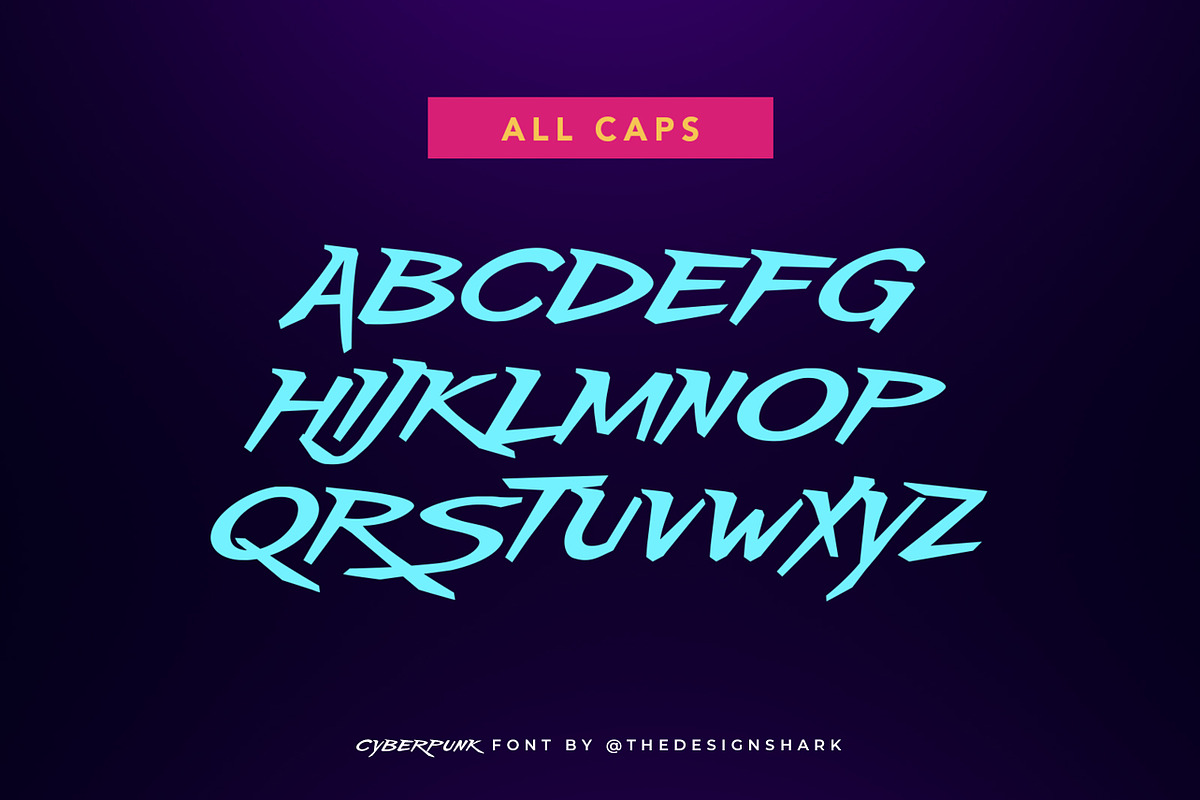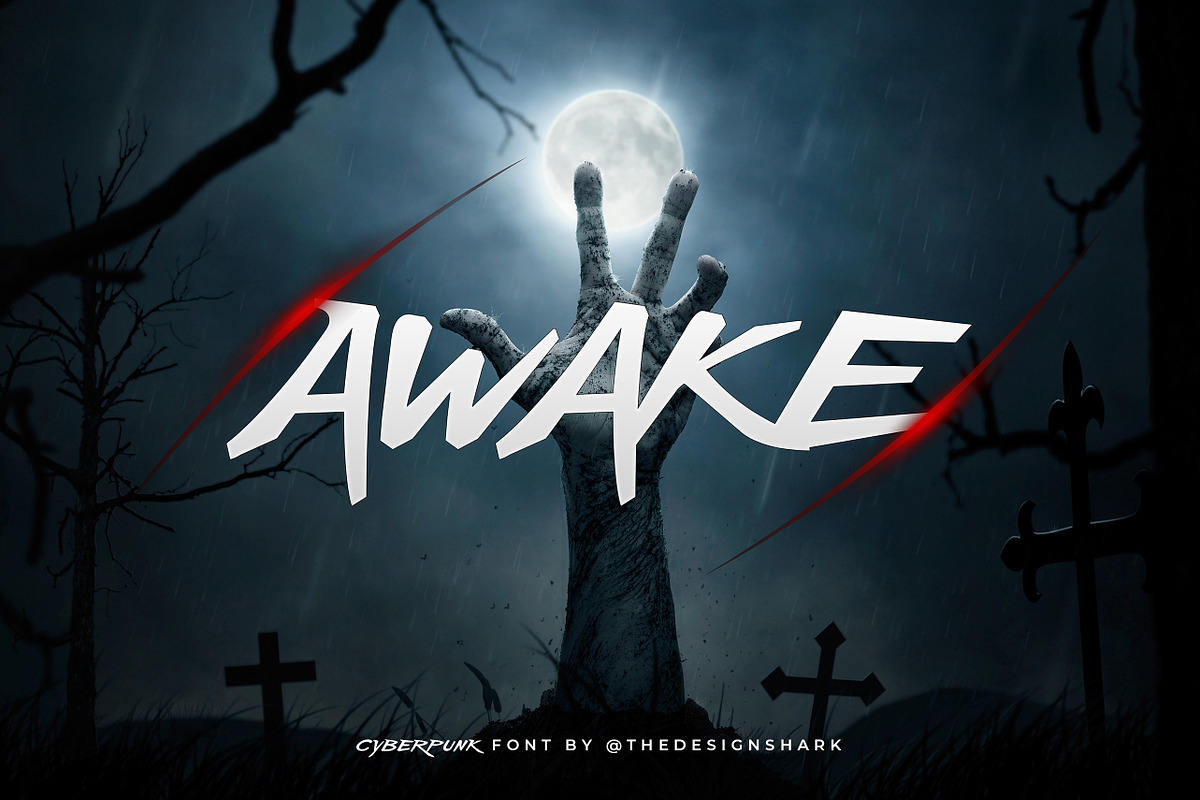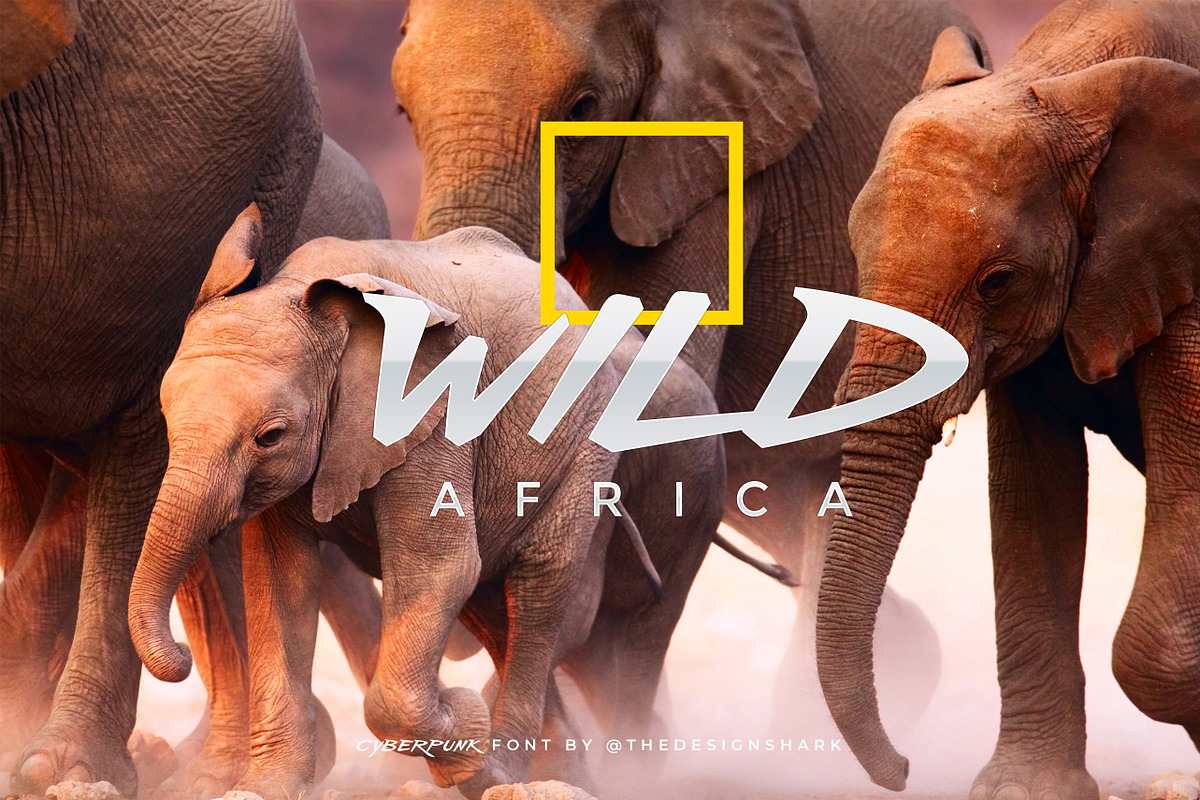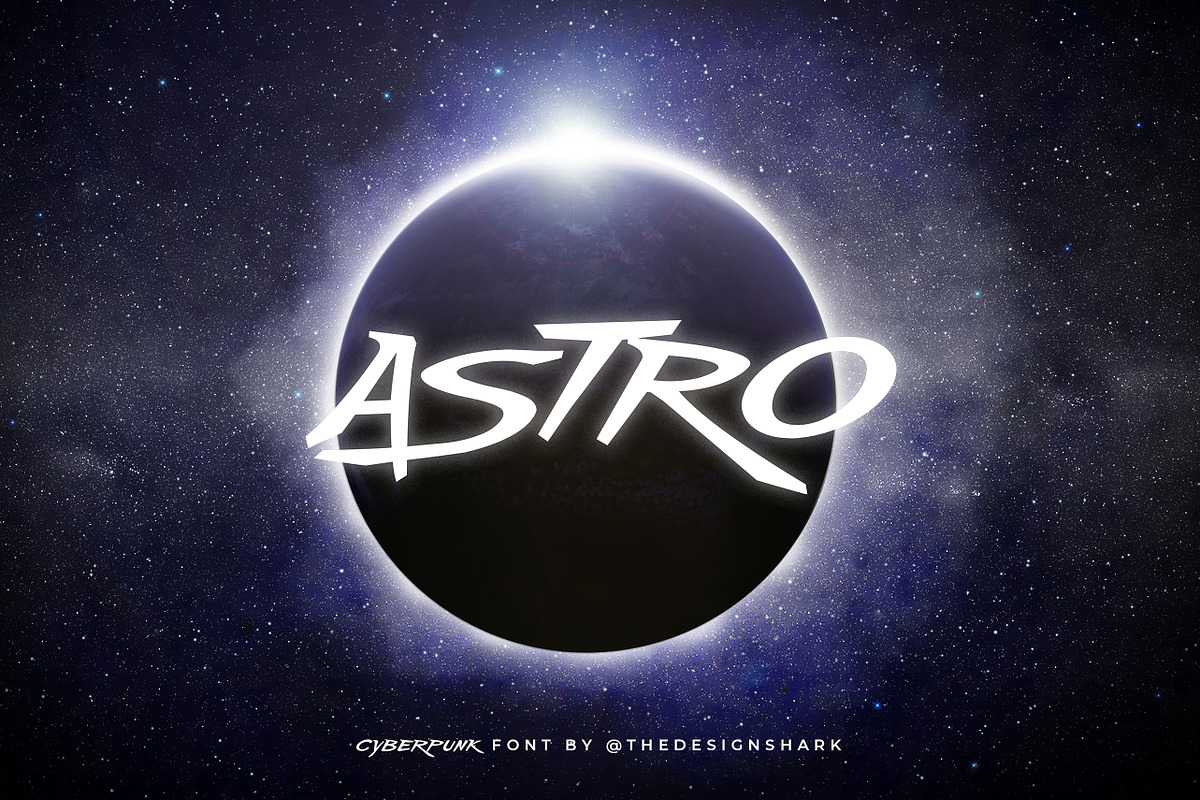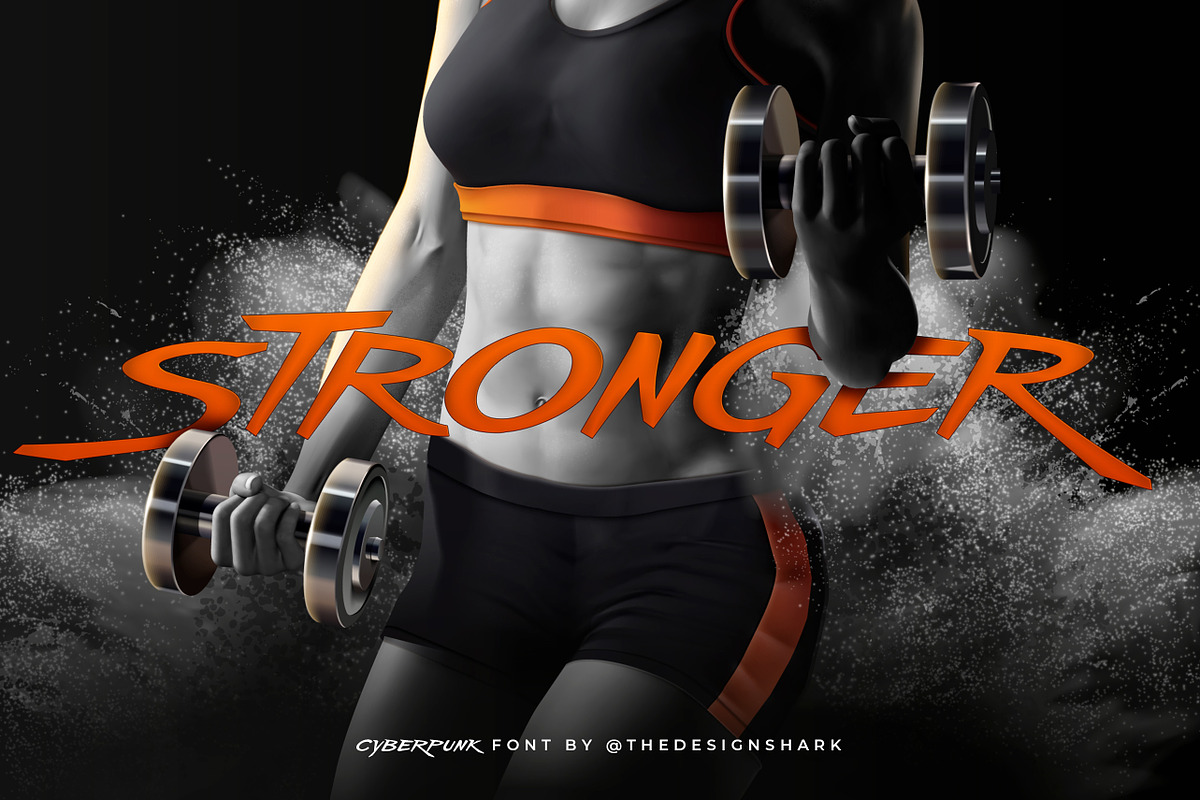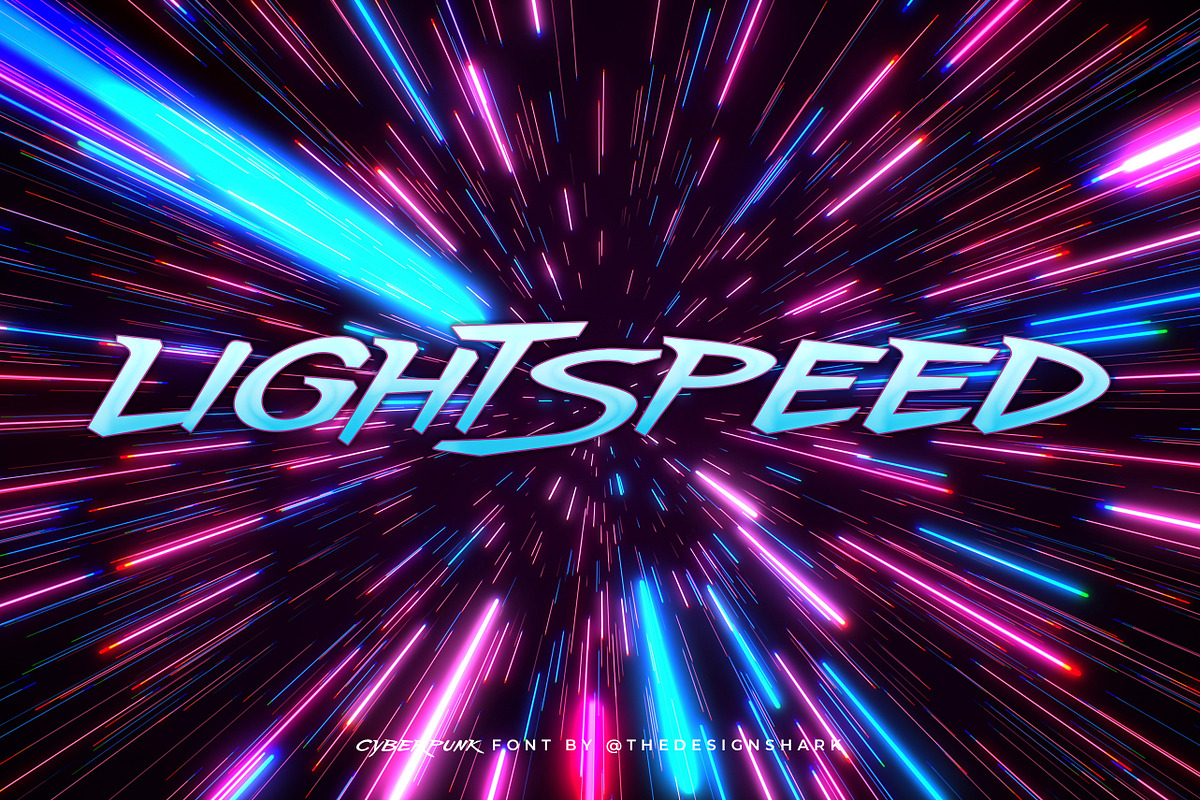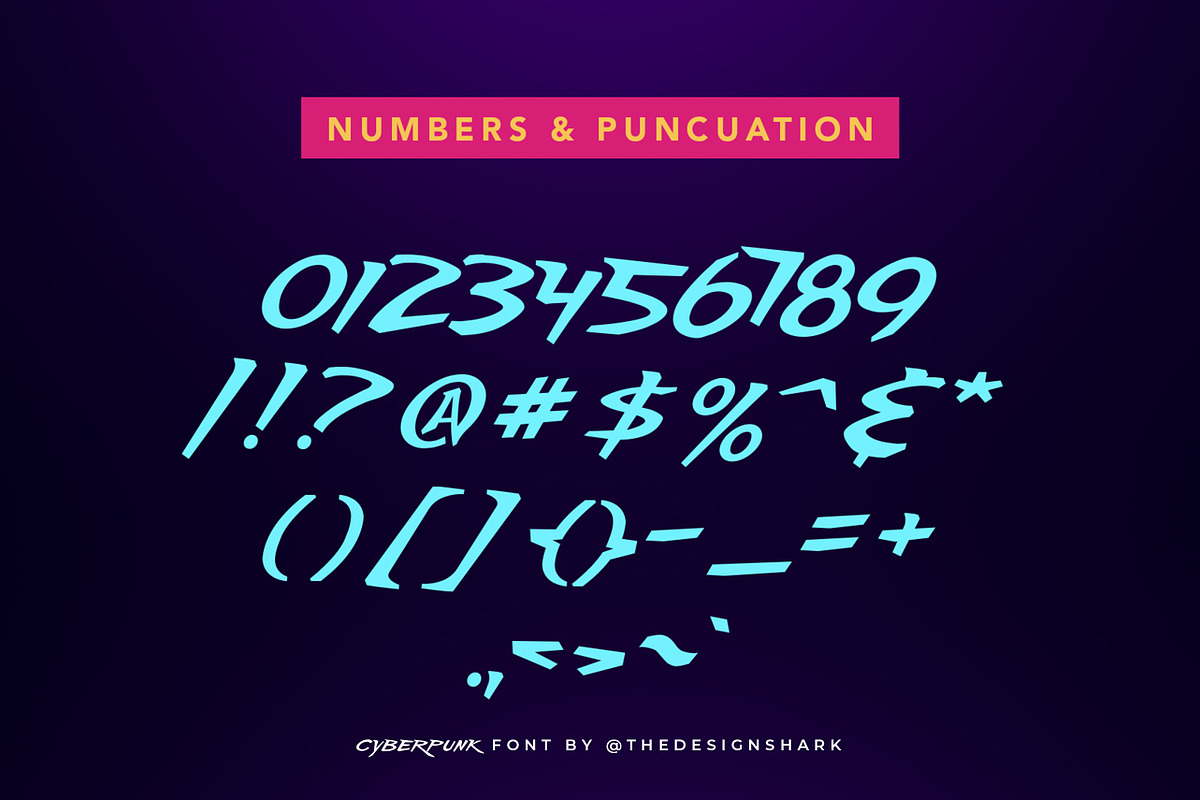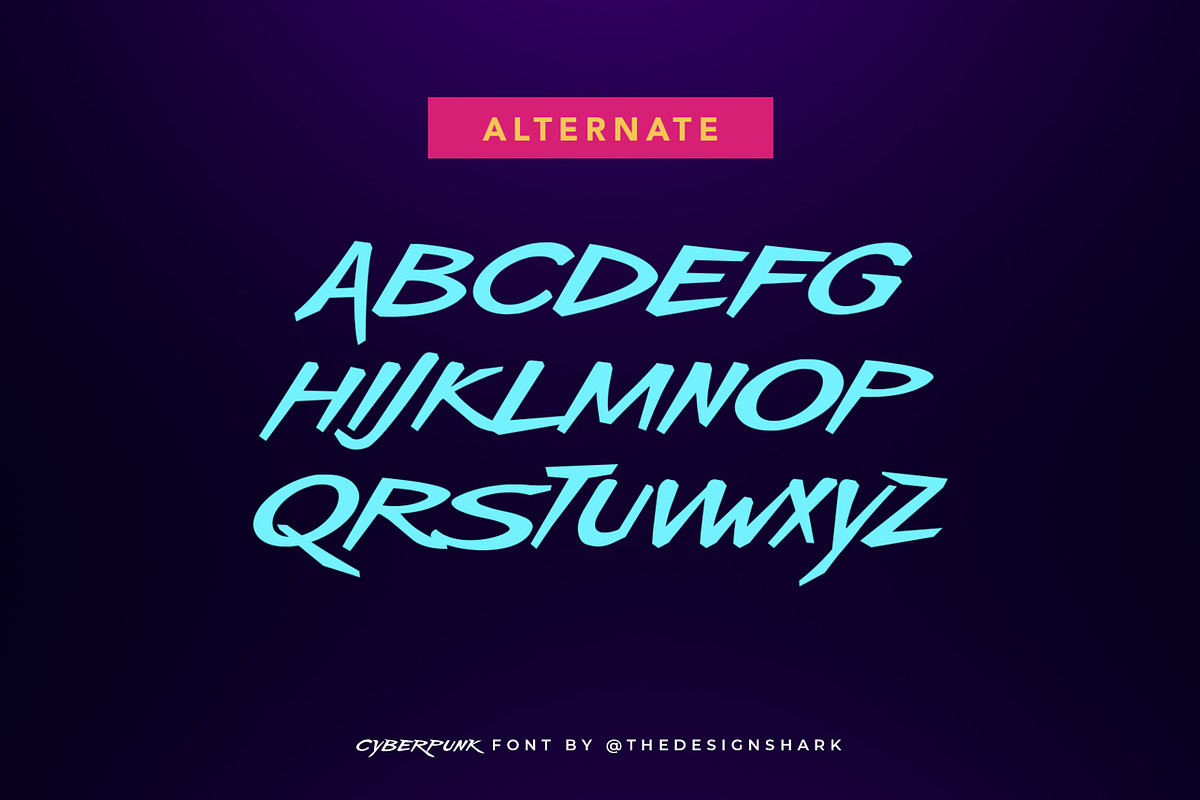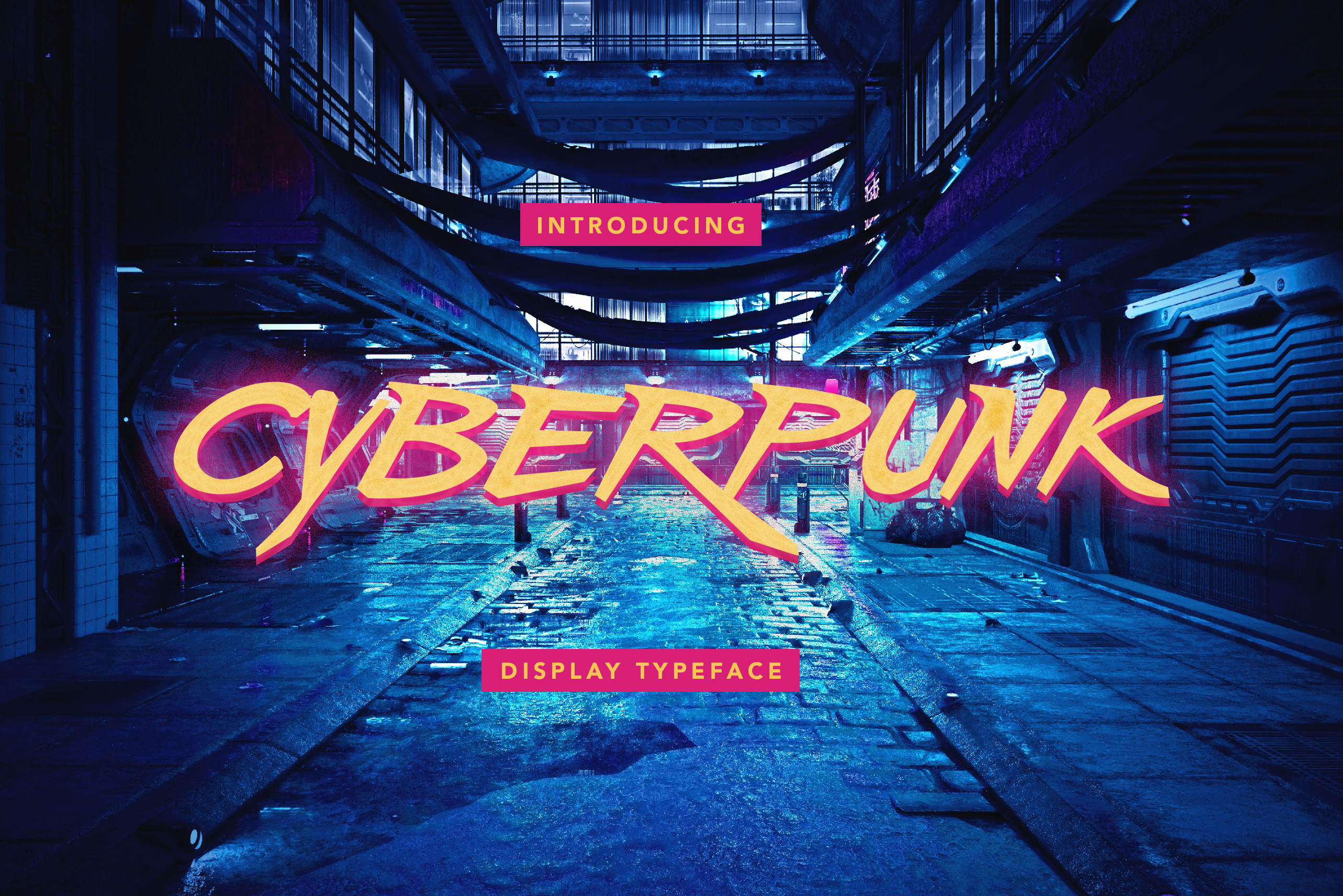
Cyberpunk Typeface
Straight from the dystopian future, Cyberpunk. An aggressive sport typeface, Cyberpunk pushes and pulls its way through a design. Themes of chaos, horror, wild and extremes is where this font thrives. Perfect for any design that needs that extra punch (Logo Design, Sports Design, Team Brand Identities, Video Editing, Jersey Design, Flyers, Posters, Headlines, Performance Products, etc.)
Uppercase, Lowercase/Alternate Glyphs, Multi Language Glyphs, Numbers, Symbols, and Punctuation included.